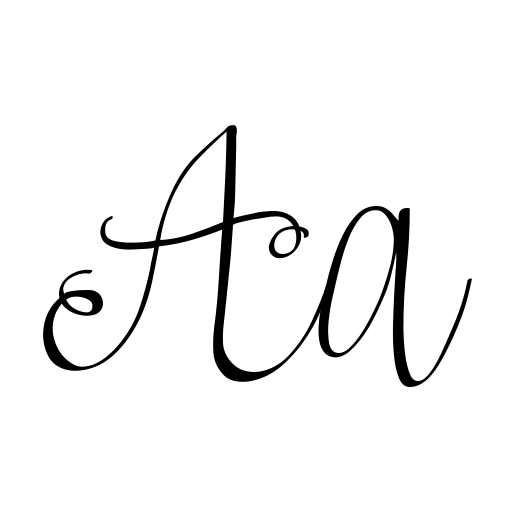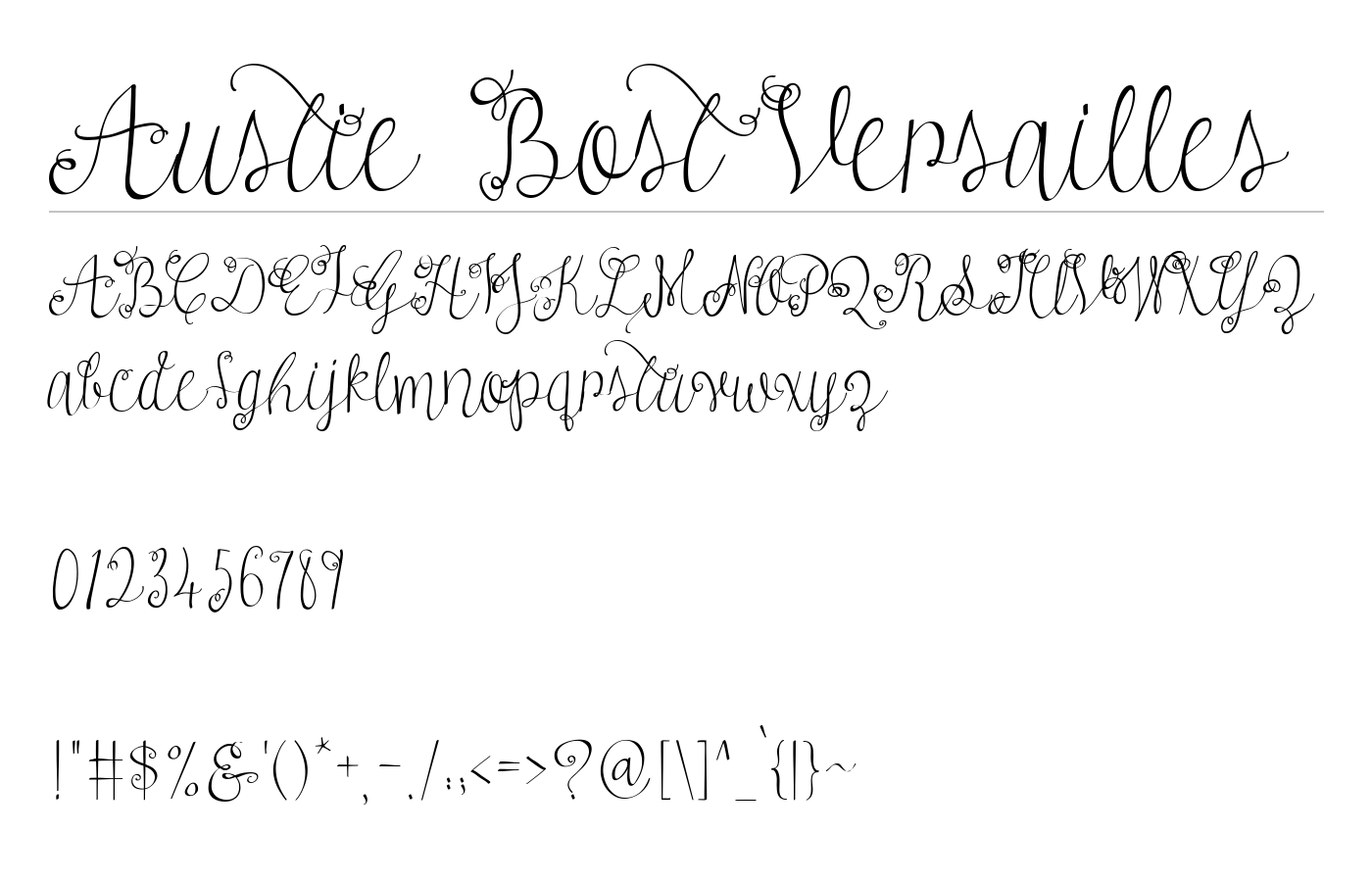
Austie Bost Versailles is an elegant, ornamental script font with delicate, flowing lines and intricate swirls that evoke a refined, vintage charm. Its thin strokes and decorative curls make it perfect for luxury branding, wedding invitations, and any design requiring a sophisticated, artistic touch. This font excels in headlines and logos where a graceful, romantic feel is desired.
Austie Bost Versailles Font
About Austie Bost Versailles Font
| Font family | Austie Bost Versailles Font |
| Designer | Austin Owens |